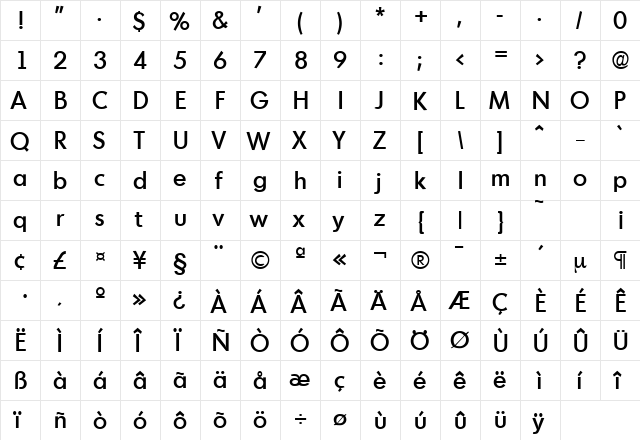
Montreal-Serial-Medium Regular
Design Context for Montreal-Serial-Medium Typeface
Montreal-Serial-Medium offers clean, dependable letterforms without strong stylistic allegiance, making it a practical choice for designers who need flexibility.
Pro Tip: Use Montreal-Serial-Medium in both headline and body roles to test its range before committing to a single application.